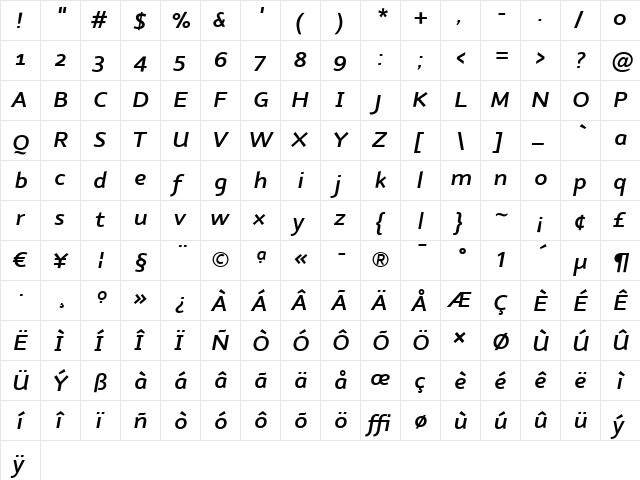
Nubian-DemiBoldItalic Medium Italic Font Preview
Nubian-DemiBoldItalic Medium Italic
Nubian-DemiBoldItalic Medium Italic Font Details
| Style | Medium Italic |
| Foundry | \ G-Type. Designed and digitized by Nick Cooke |
Design Context for Nubian-DemiBoldItalic Typeface
Nubian-DemiBoldItalic takes a measured approach to typography — its balanced proportions and neutral character make it a reliable workhorse for both digital and print work. The dynamic lean of this cut emphasises speed and emphasis in any layout. The heavy weight commands attention and anchors typographic hierarchies.